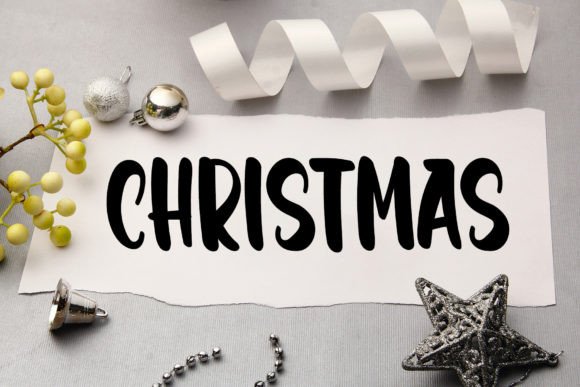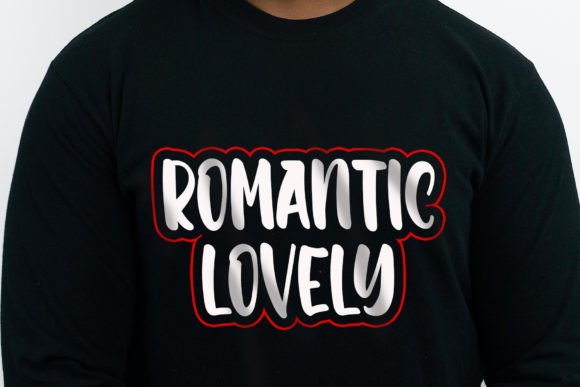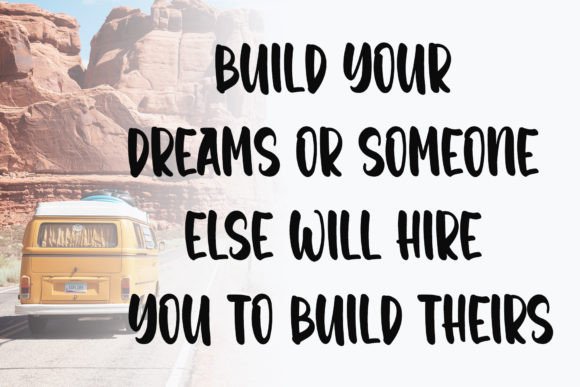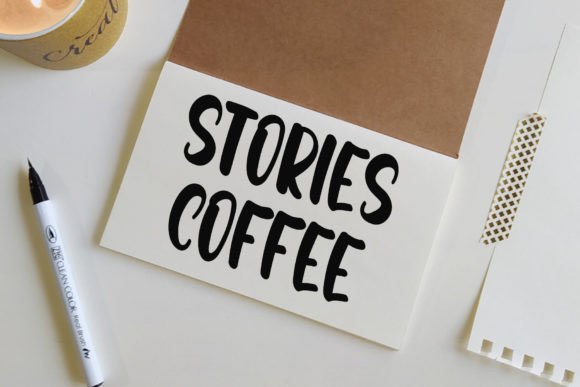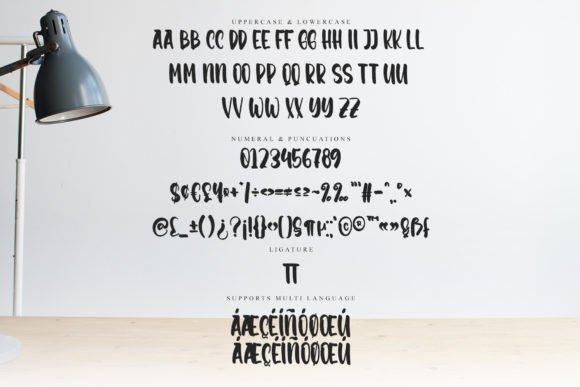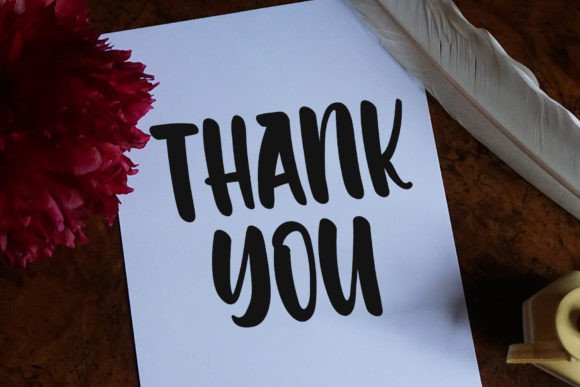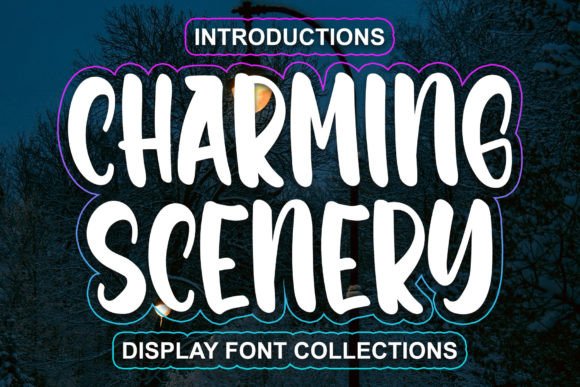
Introducing Charming Scenery Font: Elevate Your Designs with Elegance
Are you a designer, crafty DIY enthusiast, or social media influencer looking for a font that adds a touch of sophistication and whimsy to your creations? Look no further than the Charming Scenery Font, a beautiful handwritten typeface designed to transform your designs into stunning works of art. In this article, we’ll dive into the world of Charming Scenery, exploring its features, uses, and benefits, and why it’s the perfect addition to your font collection.
The Magic of Charming Scenery Font
Charming Scenery is a meticulously crafted handwritten font that exudes elegance and charm. Its unique, flowing script is perfect for adding a personal touch to your designs, whether you’re working on a branding project, social media graphics, or DIY crafts. With Charming Scenery, you can say goodbye to bland, generic fonts and hello to a world of creative possibilities.
Features of Charming Scenery Font
- Handwritten with love: Charming Scenery is a carefully crafted handwritten font, giving it a warm, personal feel that’s perfect for designs that require a touch of humanity.
- Elegant and whimsical: This font combines elegance and playfulness, making it suitable for a wide range of design projects, from formal invitations to social media graphics.
- Versatile: Charming Scenery is perfect for various design applications, including logos, branding, Instagram graphics, calligraphy scripts, and DIY projects.
Uses of Charming Scenery Font
Charming Scenery Font is an incredibly versatile typeface that can be used in a variety of design projects, including:
- Social Media Graphics: Add a touch of elegance to your Instagram posts, stories, and bio with Charming Scenery. Create stunning quotes, announcements, and promotional graphics that will leave your followers in awe.
- DIY Projects: Take your DIY projects to the next level with Charming Scenery. Use it to create beautiful calligraphy scripts for handmade cards, gift tags, and other crafty endeavors.
- Branding and Logos: Establish your brand’s identity with Charming Scenery. This font is perfect for creating unique logos, business cards, and marketing materials that reflect your brand’s personality.
- Stationery and Invitations: Create stunning stationery, invitations, and greeting cards with Charming Scenery. Its elegant script is sure to impress your friends, family, and clients.
Benefits of Using Charming Scenery Font